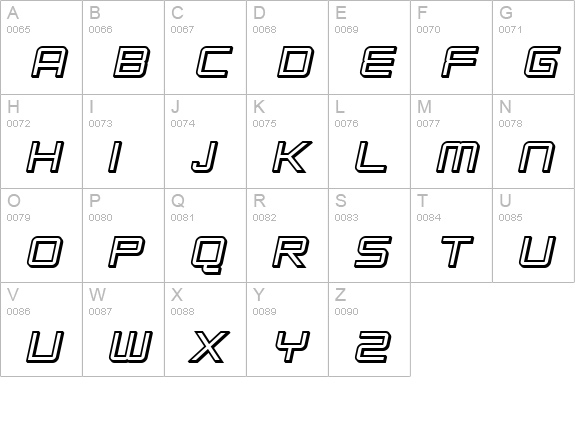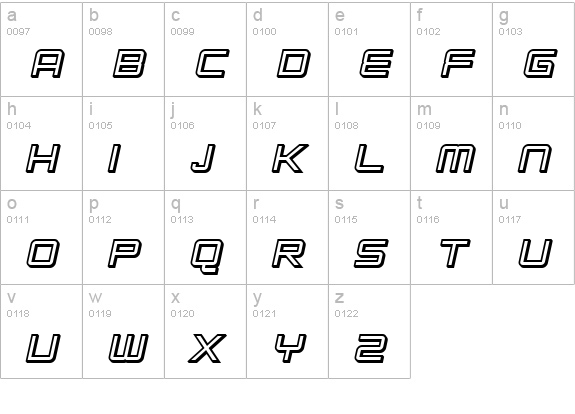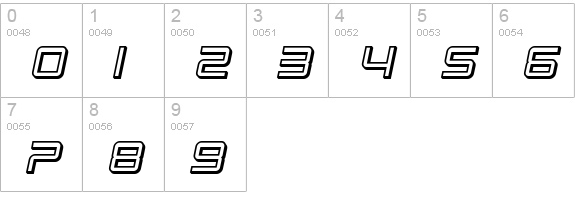
SF Chromium 24 SC Bold Oblique Font Details
SF Chromium 24 SC Bold Oblique is a strong, high-contrast, italic variant in the SF typeface family \xE2\x80\x94 well suited to headlines, attention-grabbing titles, and strong calls-to-action.
SF Chromium 24 SC Bold Oblique is a stunning font that effortlessly combines elegance and modernity. Its bold and oblique style adds a touch of sophistication to any design project, making it perfect for eye-catching headlines, logos, and branding materials. This font exudes a sense of confidence and strength with its sleek and sharp edges, making it ideal for projects that require a bold statement. The oblique slant adds a dynamic and energetic feel, making it perfect for projects that need to convey a sense of movement and action. One of the best things about SF Chromium 24 SC Bold Oblique is that it is freely available to download at FontsMarket.com. This means that you can enjoy the high-quality and professional design of this font without any cost. It's a fantastic opportunity to enhance your designs and make them stand out without breaking the bank. Whether you're a professional designer looking to add a unique touch to your creations or an individual in need of a font that exudes personality, SF Chromium 24 SC Bold Oblique is the perfect choice. With its free availability at FontsMarket.com, you can easily access this font and elevate your projects to new heights. It's a must-have font for anyone who appreciates quality design and wants to make a lasting impression.